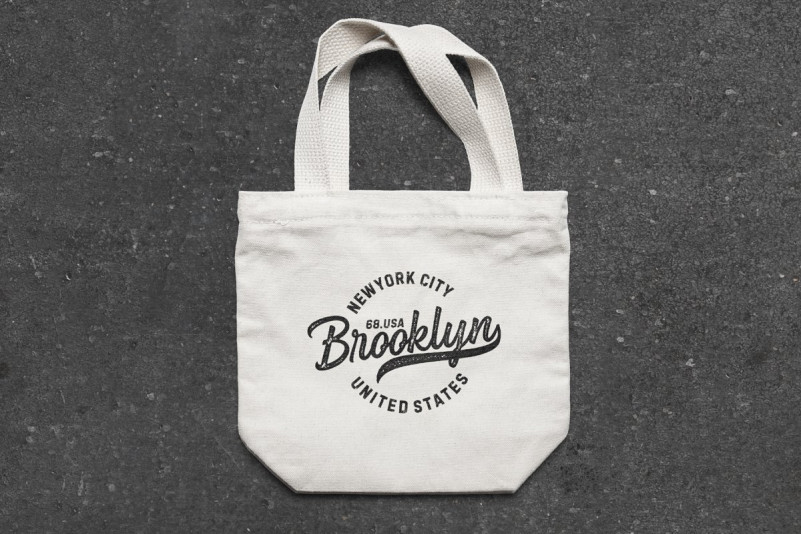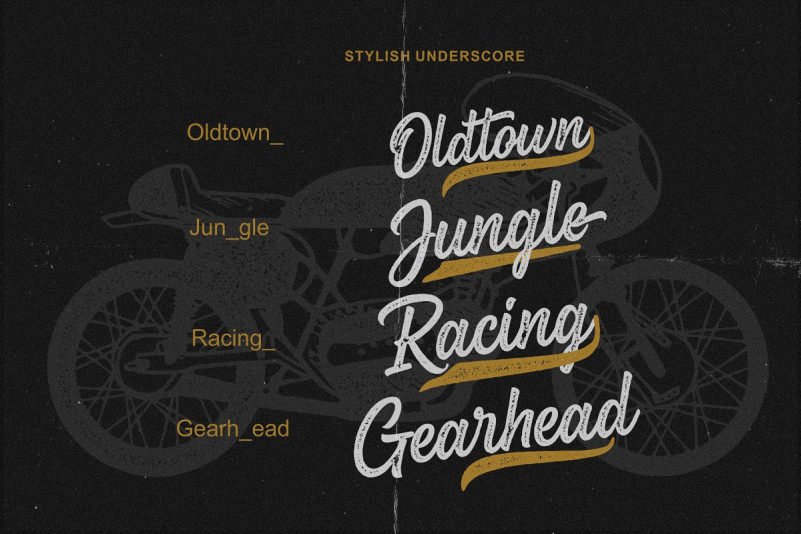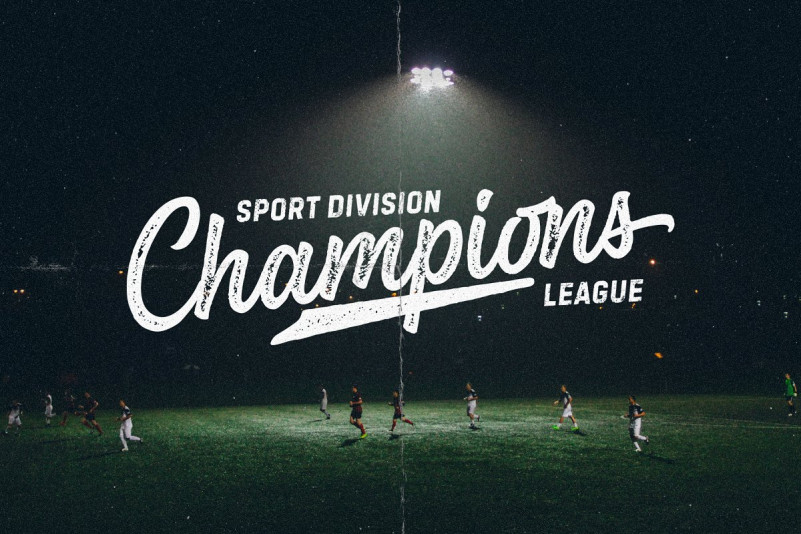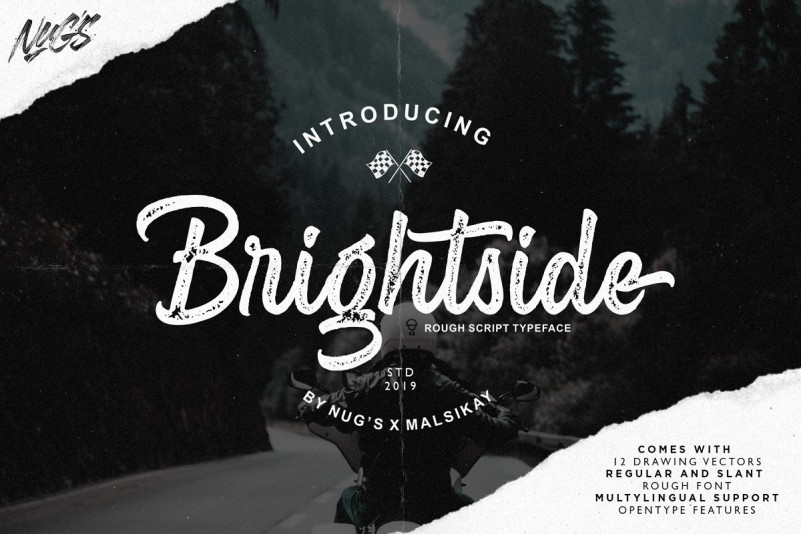
Brightside Script Font
Thank you for looking! Introducing a vintage font style. Good handcrafted font for any label design. Introducing Brightside Font! Brightside is a script font with a vintage style with a rough texture that makes your design bolder.. Brightside its Sporty and great to playing typography, or your logos , your shop, Logos, catalog , all about of fashions and arts.